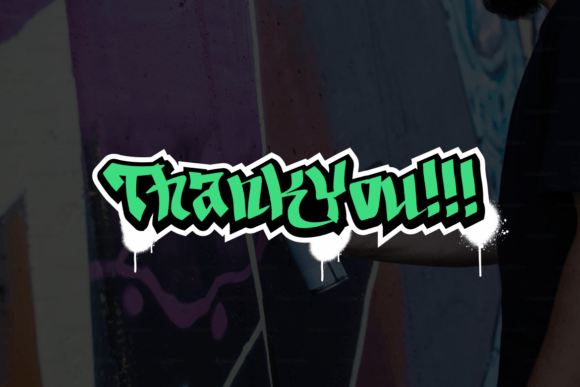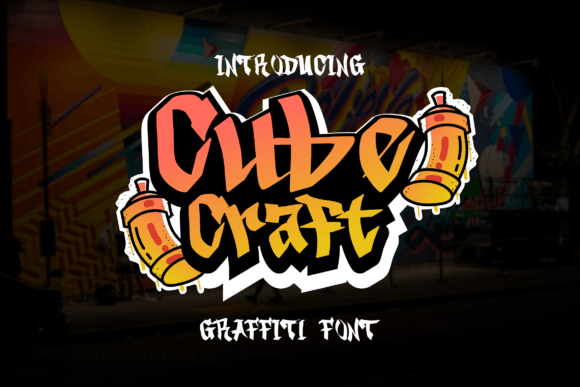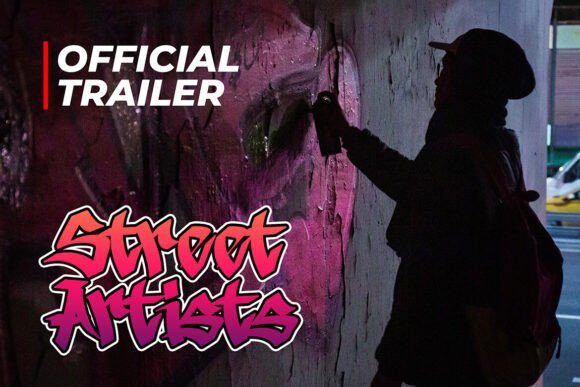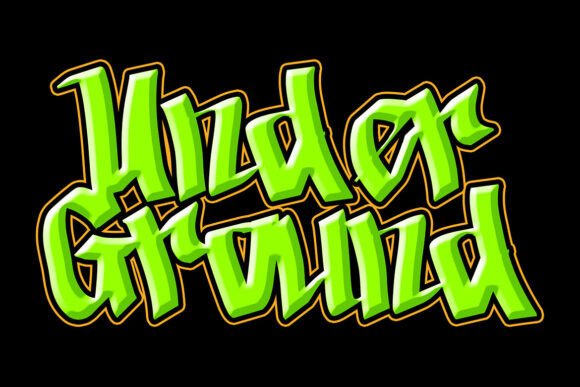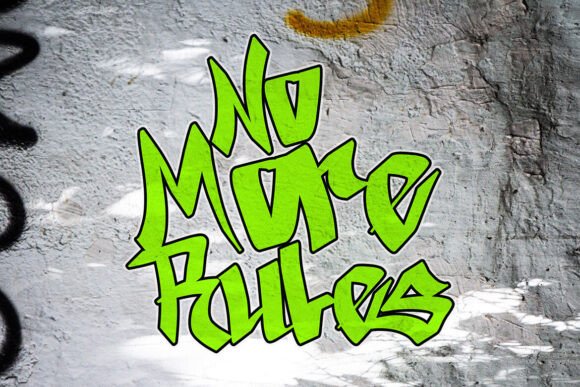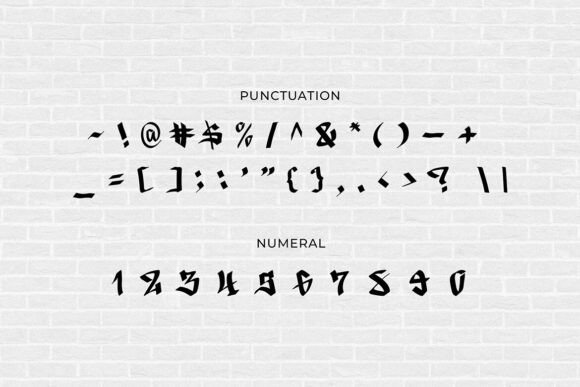
Introduction to Cubecraft Font
CubeCraft is a Graffiti font with natural strokes, complemented by uppercase, and lowercase letters, numbers, and punctuation.
This font will be a perfect choice for various designs & artworks such as social media posts, brand types, posters, merchandise, packaging, headlines, merchandise, t-shirts and more .
Key Features of Cubecraft Font
Why Choose Cubecraft Font?
Cubecraft Font offers exceptional quality and versatility, making it a valuable addition to your design toolkit. Whether you’re creating for personal projects or commercial use, Cubecraft Font delivers professional results.